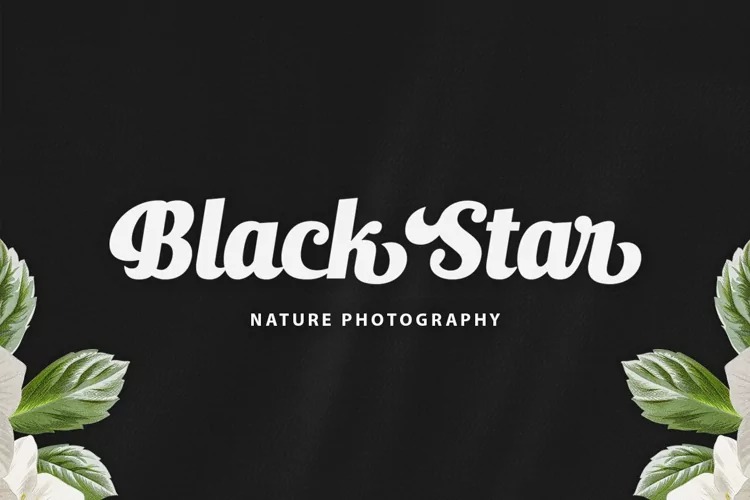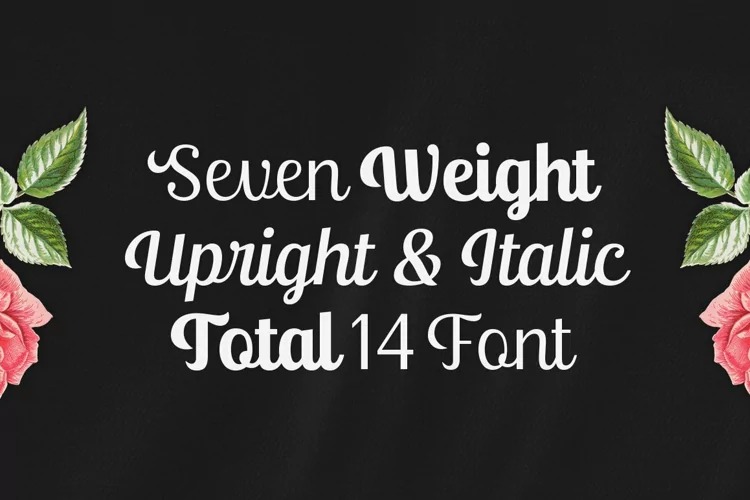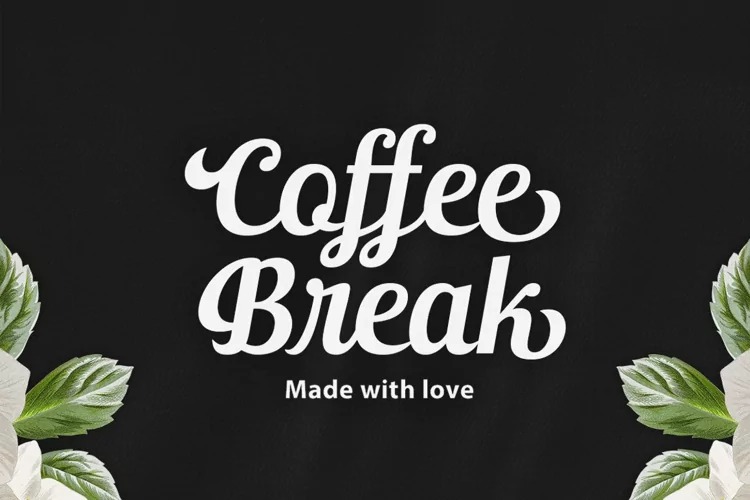
Ralsteda Font Family
Ralsteda Script Font
It’s a retro and bold handwritten typeface, created to give your headlines and logotype a stylish touch. Ralsteda script family consist of 14 fonts with 7 weigths. There are so many variations on each character. Include Opentype stylistic alternates, standard ligatures, discretionary ligatures and multilingual support. You are able to create so many different typographical layouts easily and quickly. This font is suitable for badges, lable, posters, wedding invitation, t-shirts, signage, logos, branding, packaging, etc.